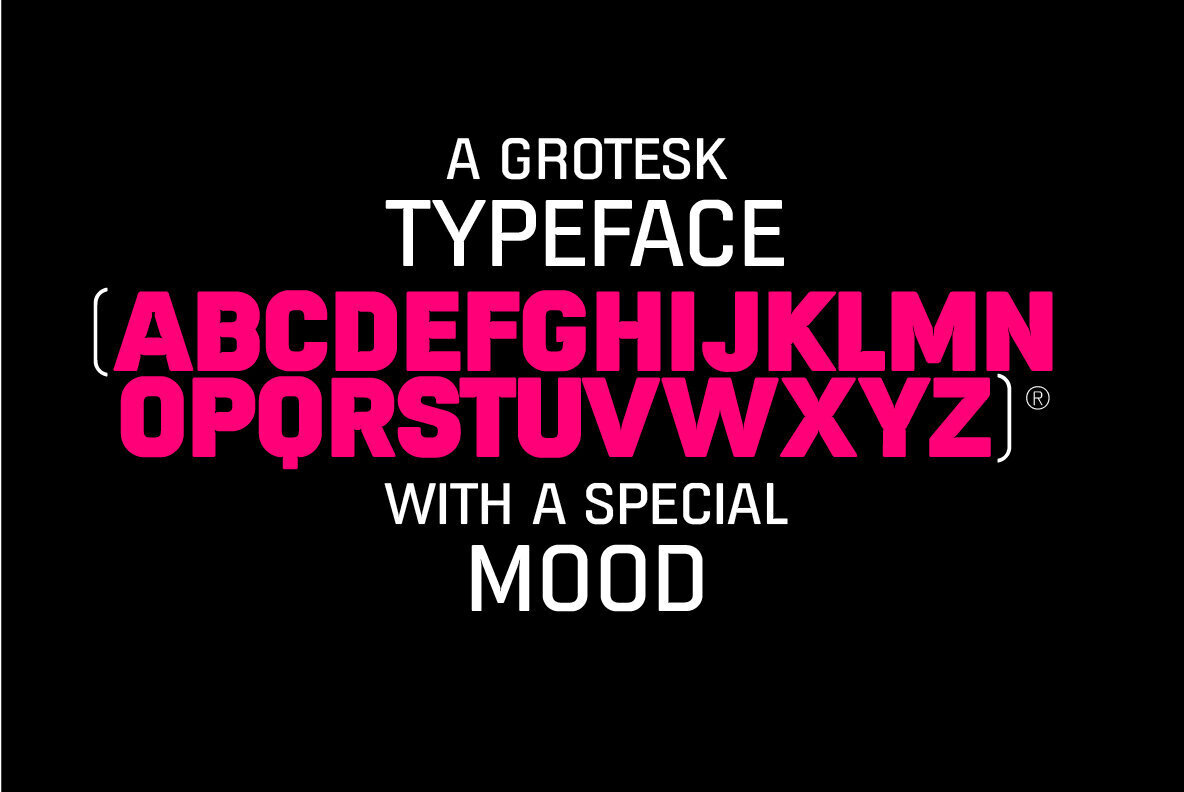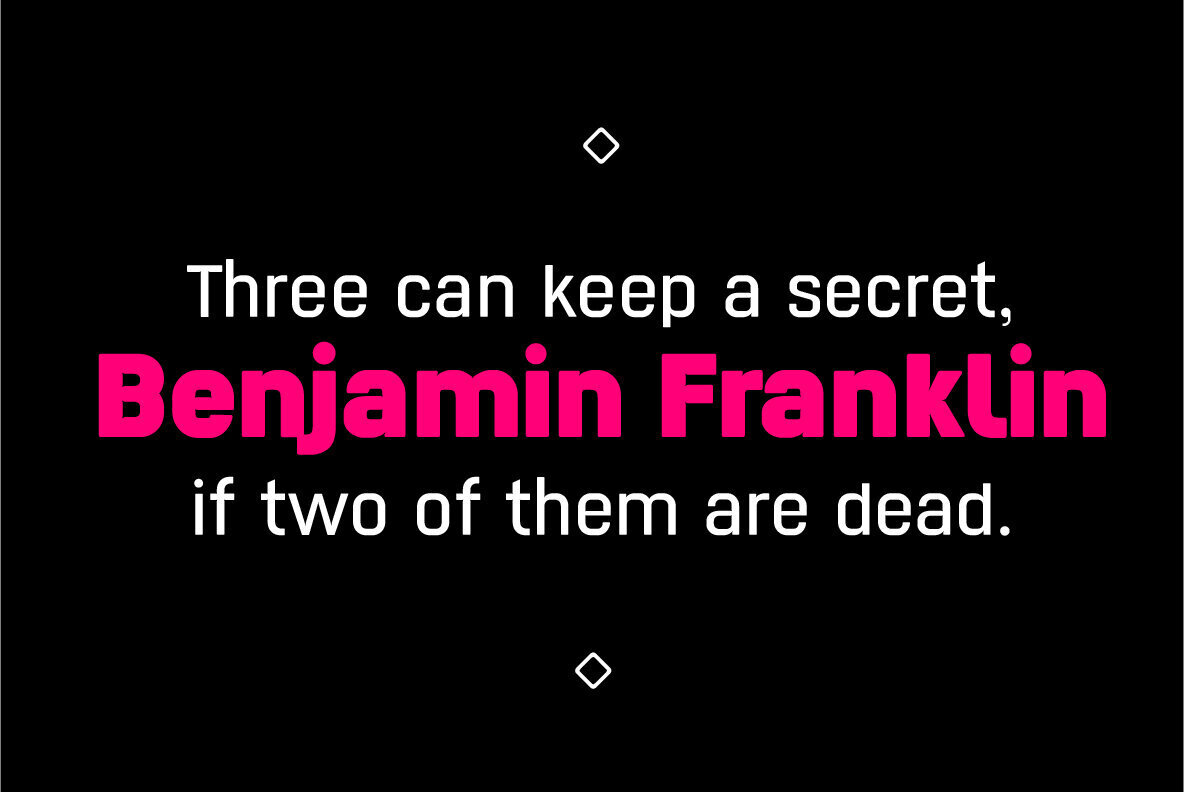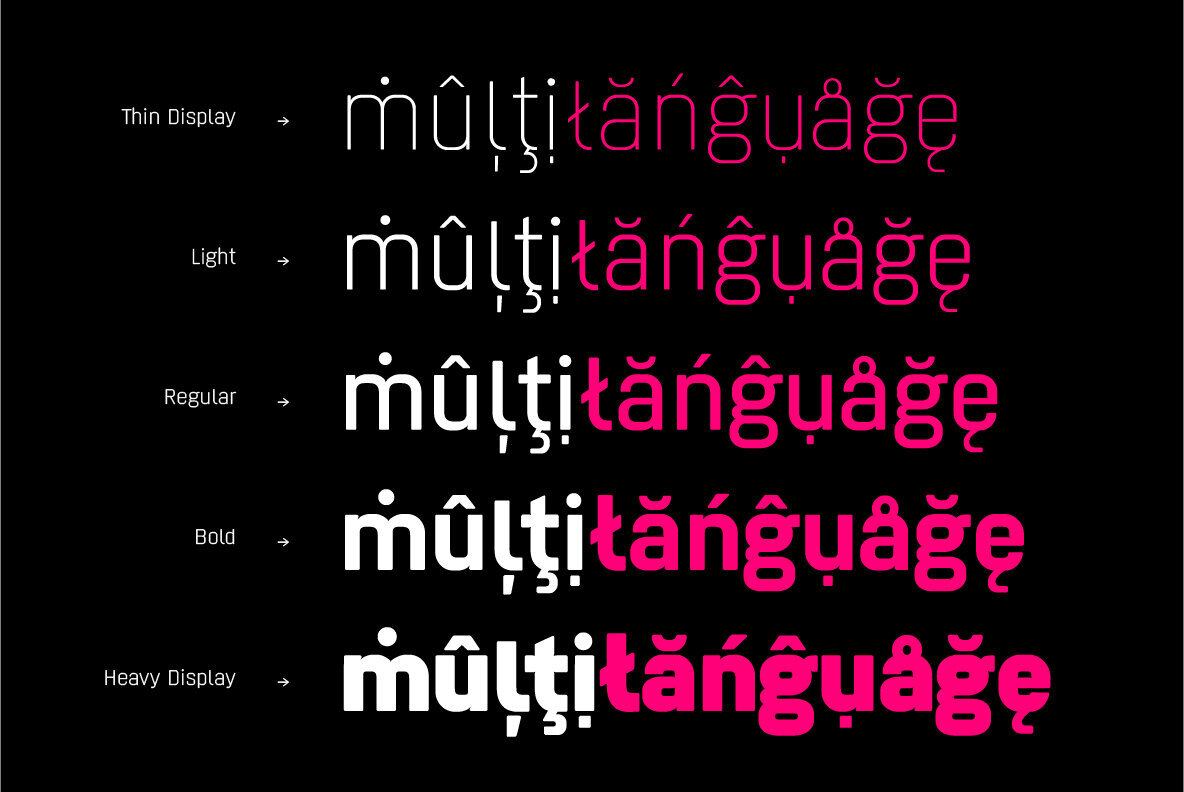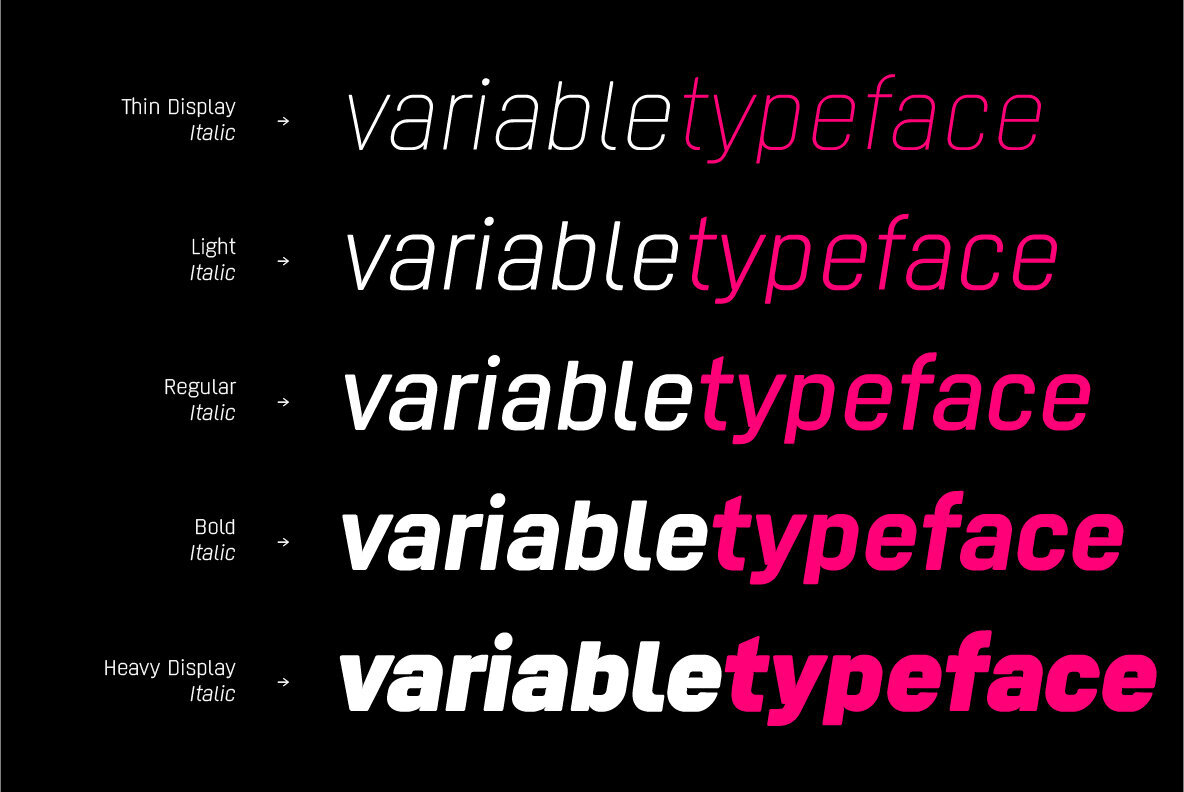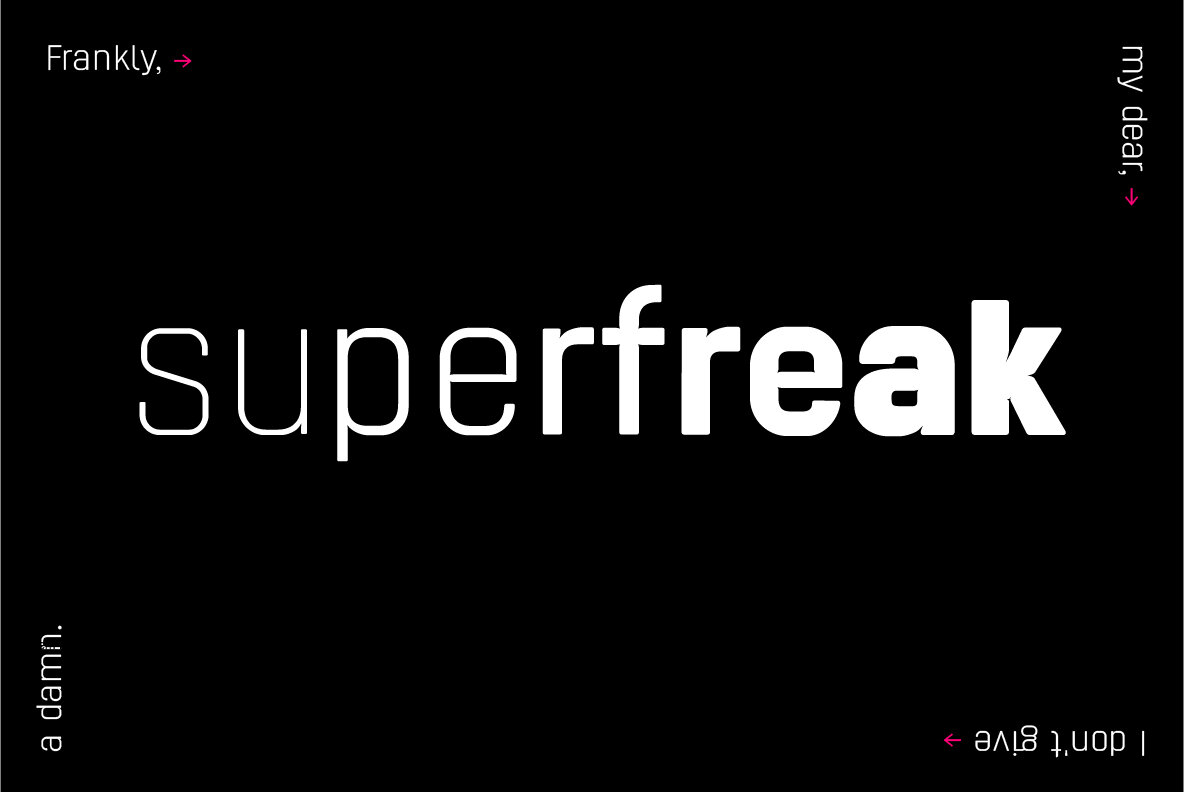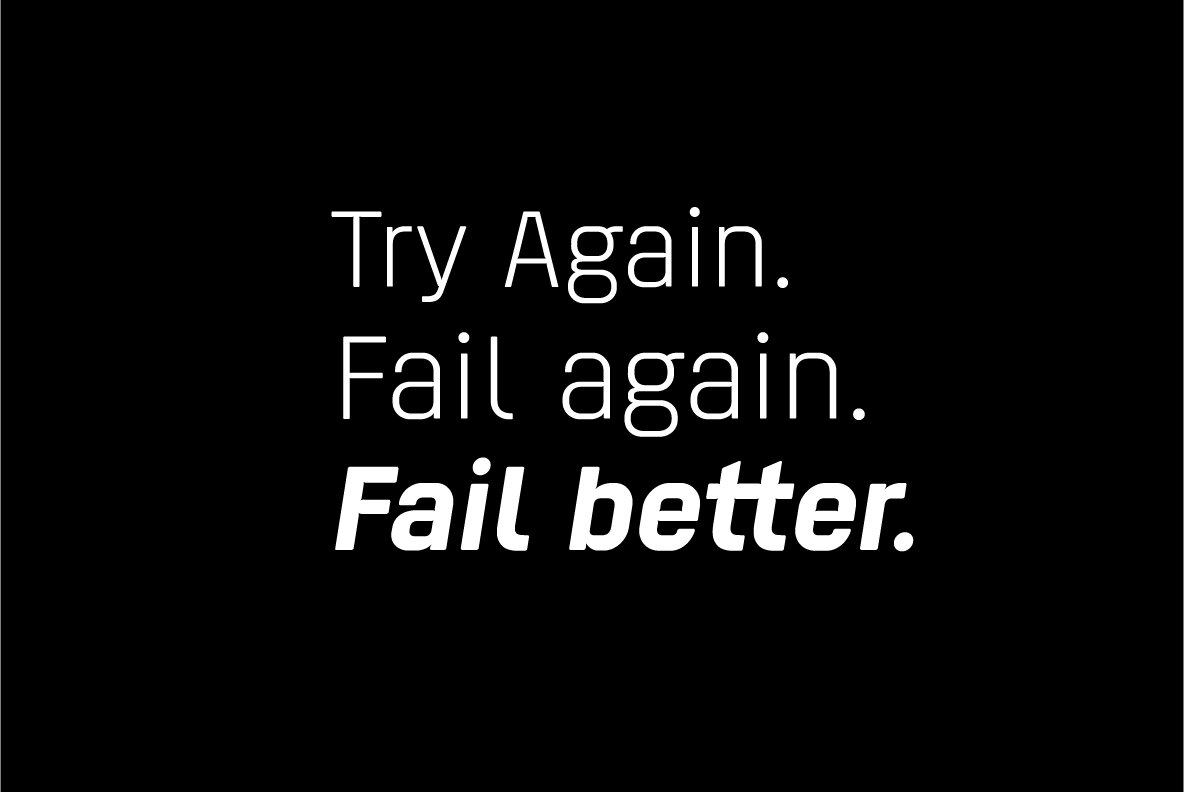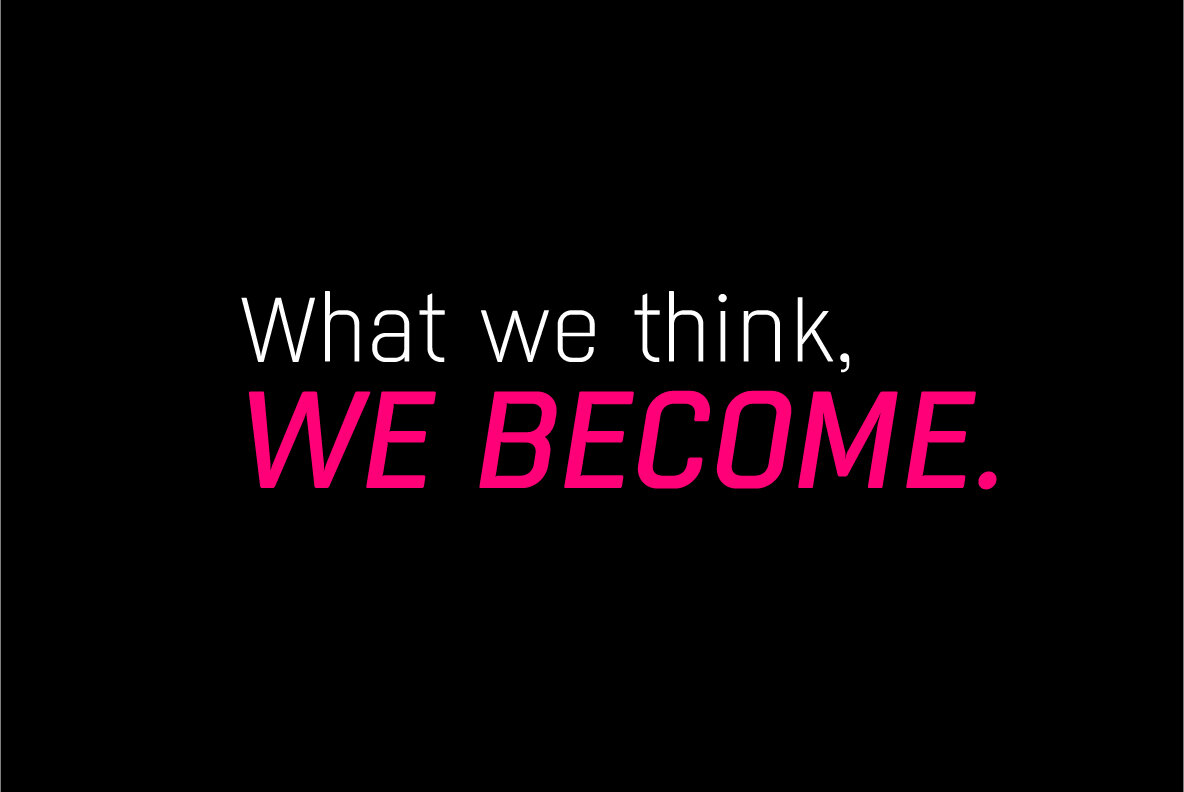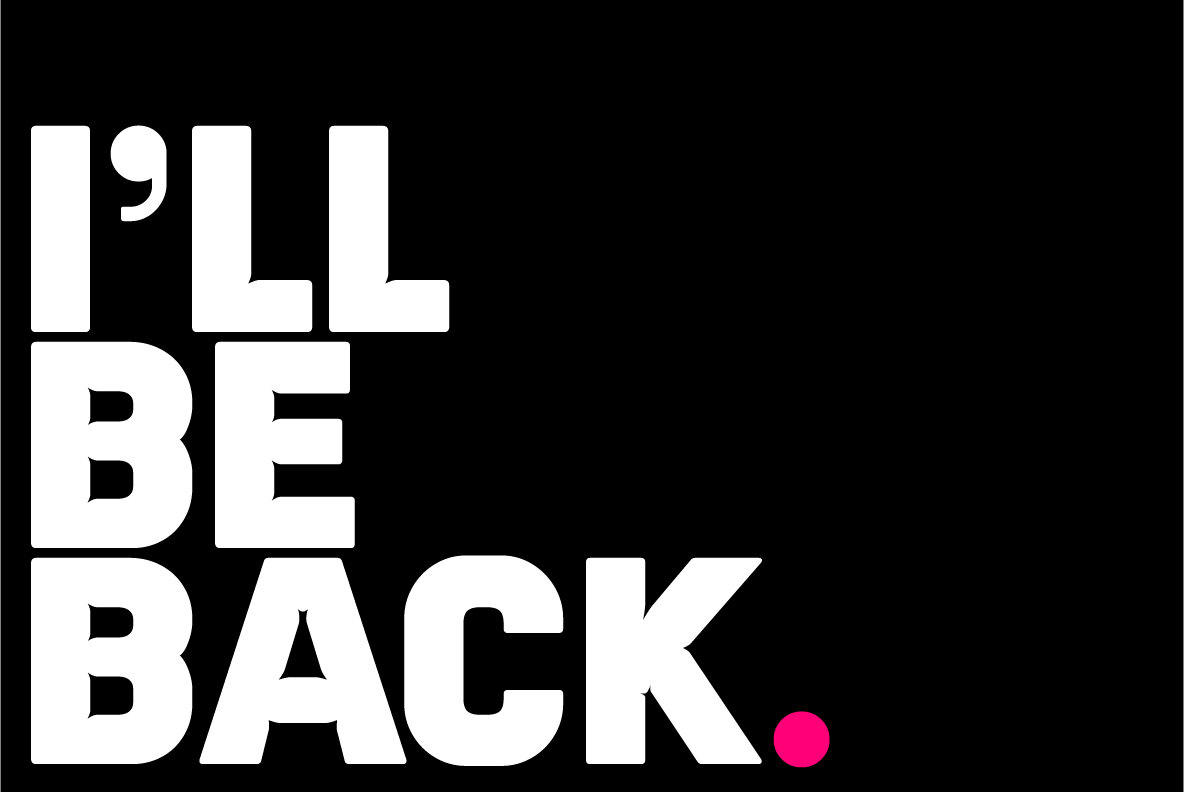
Polar Font
Polar is a sans-serif grotesk with characteristic ink traps and rounded vertexes.
Polar is a variable font. It is versatile, modern, elegant and neutral. It can be displayed in a range from 200 to 900 in its weight axe to play many different roles.
The font has 5 predefined instances, Thin Display, Light, Regular, Bold and Heavy Display, in two styles, regular & italic, with 716 glyphs each of them.
Polar has 25 OpenType features such as ligatures, fractions, stylistic alternates, localized forms, old-style figures, etc.
It can be suitable for long texts. It also works great as a perfect display font for all caps headings, especially with its thin and heavy weight variants.
Polar covers Latin, Central European characters & supports 101 languages:
A considerable amount of glyphs have been redrawn for a major visual consistency in the overall font.